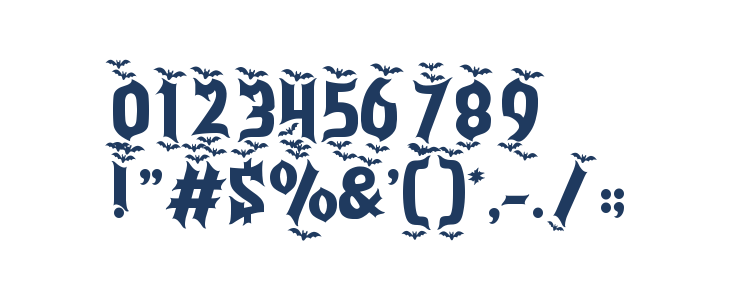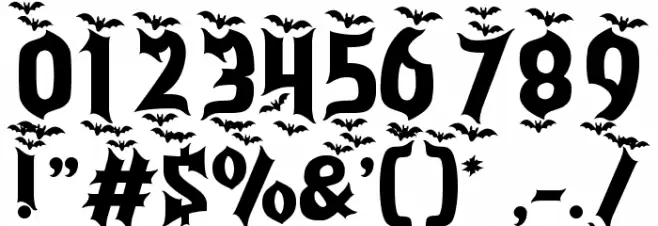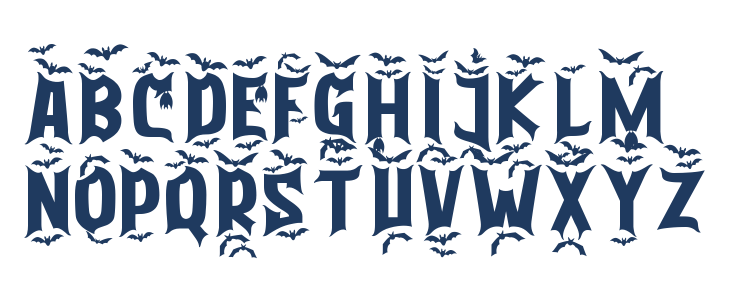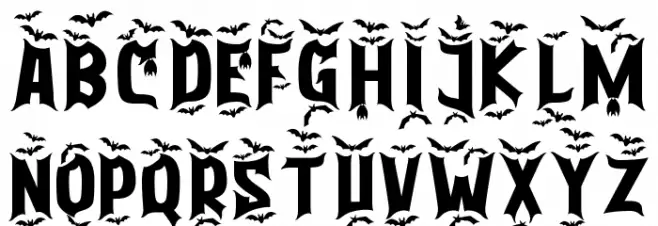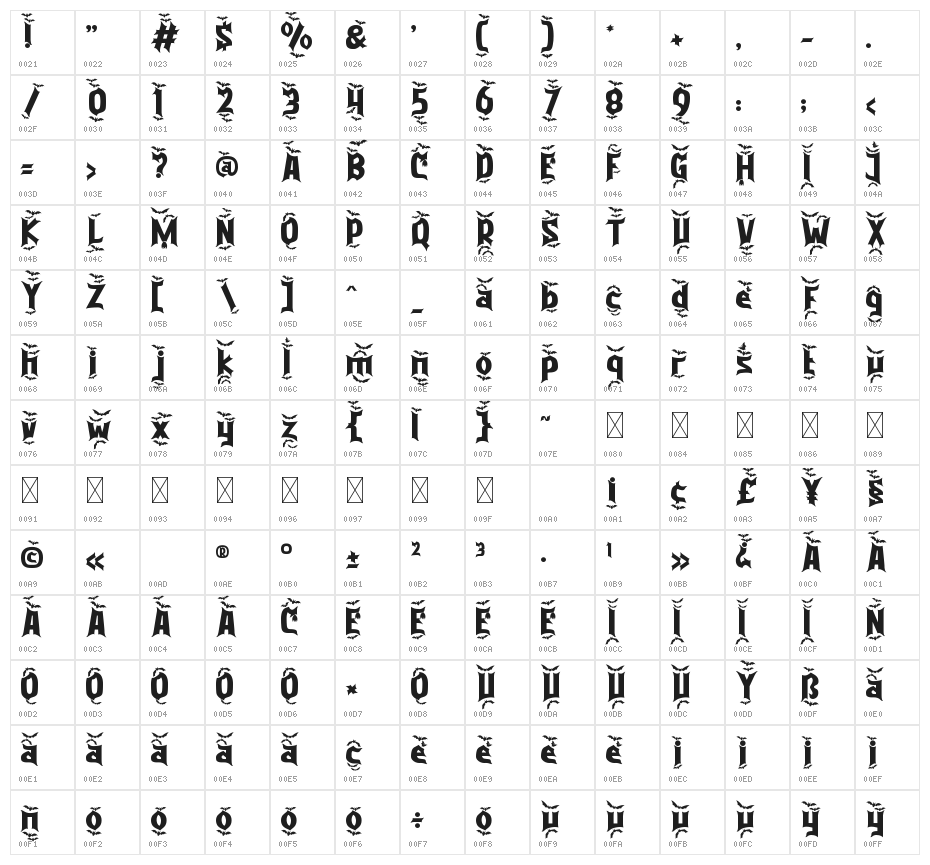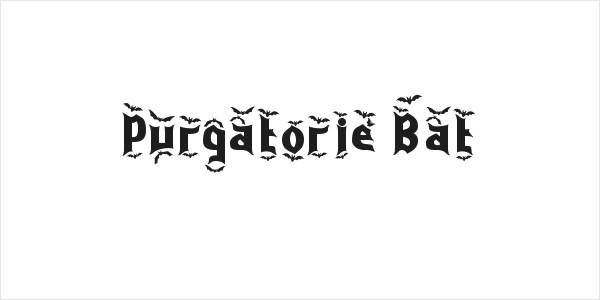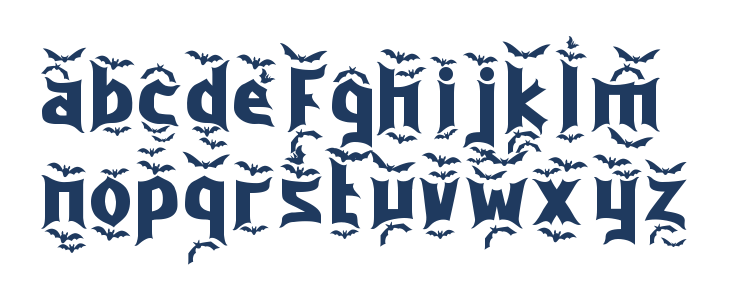
Purgatorie Bat Font
Purgatorie Bat Description
A bold, decorative display font with sharp, angular letterforms and bat illustrations integrated above each character, evoking a spooky, Halloween-inspired aesthetic.
| Overall Style | Decorative, Spooky, Thematic |
| Use Case | Headlines, Posters, Event Invitations, Logos |
| Proposed Projects | Halloween posters, haunted house invitations, themed party flyers, horror movie titles, seasonal branding. |